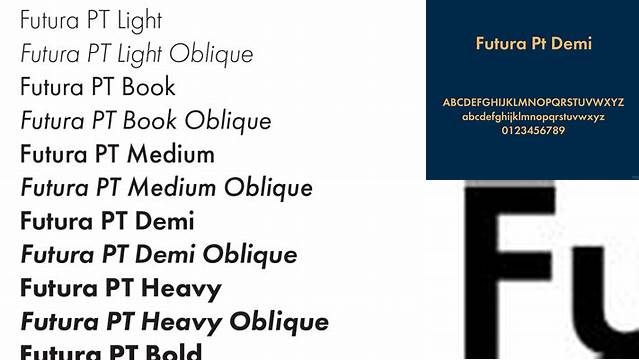
Futura PT Demi Font: Free Download & Usage Guide
Introduction: Unveiling the Timeless Appeal of Futura PT Demi Font
Futura PT Demi font stands as a cornerstone of modern typography, celebrated for its clean lines, geometric precision, and timeless elegance. Guys, if you're looking to infuse your designs with a touch of sophistication and readability, Futura PT Demi is an excellent choice. This font, a member of the broader Futura family, offers a distinctive weight that strikes a balance between boldness and subtlety, making it incredibly versatile for a wide array of applications. Whether you're working on branding materials, editorial layouts, or web designs, Futura PT Demi can elevate your work with its refined aesthetic.
Its geometric structure, inspired by the Bauhaus design principles, ensures that each character is meticulously crafted, contributing to the font's overall clarity and visual appeal. This clarity is particularly crucial in body text, where readability is paramount. At the same time, the font's distinctive character shapes make it equally effective in headlines and display settings, where it can command attention and convey a sense of modernity and sophistication. In the following sections, we'll dive deep into where you can find free downloads of Futura PT Demi, how to ensure you're adhering to licensing terms, and explore some creative ways to incorporate this fantastic font into your projects. So, stick around as we uncover the beauty and versatility of Futura PT Demi.
Alternatives to Futura PT Demi: Exploring Similar Font Options
Okay, so maybe you're having a tough time finding a free download of Futura PT Demi that fits your needs, or perhaps the licensing is a bit too restrictive. Don't sweat it! There are tons of fantastic fonts out there that capture a similar vibe. Exploring alternatives can actually be a fun way to discover new typefaces that might even suit your project better than you initially thought. When you're on the hunt for a Futura PT Demi alternative, you're essentially looking for geometric sans-serif fonts. These fonts are characterized by their clean lines, simple shapes, and overall modernist aesthetic. Think of fonts that have that same crisp, contemporary feel.
One popular alternative is Montserrat. This font, available on Google Fonts, boasts a similar geometric structure and excellent readability. It’s super versatile and works well for both headings and body text. Another great option is Open Sans, also a Google Fonts staple. Open Sans is known for its neutral yet friendly appearance, making it a solid choice for a wide range of applications, from websites to print materials. If you're after something with a bit more character, consider Nunito. Nunito has rounded terminals, giving it a slightly softer and more approachable feel than Futura PT Demi, while still maintaining that geometric foundation. For a more premium option, Avenir is worth checking out. Avenir is another geometric sans-serif font designed by Adrian Frutiger, the same designer behind the iconic Frutiger typeface. It’s known for its elegance and clarity, making it a fantastic alternative to Futura PT Demi. Remember, the best font for your project will depend on the specific context and the message you're trying to convey. So, experiment with different options and see what works best for you.